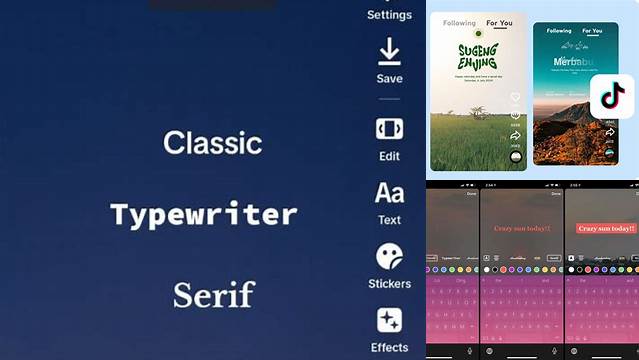
Best Fonts For Editing TikTok Videos: Make Your Content Pop
Hey there, TikTok creators! Want to make your videos stand out? Choosing the right font is key. The fonts you use can significantly impact how your message is received and how engaging your content is. In this article, we'll dive into the best fonts for editing TikTok videos, giving you the knowledge to make your content shine. So, let's get started and find the perfect fonts for TikTok to elevate your videos!
Why Fonts Matter on TikTok
Fonts on TikTok videos are more than just words; they're a visual element that communicates your style and message. Think about it: a playful, bubbly font gives off a totally different vibe than a sleek, modern one. The right font can grab your viewer’s attention, making them stop scrolling and watch your video. Fonts enhance the overall aesthetic, making your content more professional and appealing. Consider fonts as part of your branding – consistent use of certain fonts can help viewers recognize your content instantly. A well-chosen font ensures readability across different devices, which is crucial for retaining your audience. For example, imagine using a super fancy, script-like font that’s hard to read on a small phone screen. People are likely to skip over your video because they can’t easily understand the text. A clear, legible font, on the other hand, keeps them engaged and focused on your message. Moreover, different fonts evoke different emotions. A bold, strong font might be perfect for a motivational message, while a softer, more rounded font might suit a lighthearted, comedic skit. By carefully selecting your TikTok fonts, you can reinforce the tone and mood of your video, creating a more impactful viewing experience. So, when you're thinking about how to make your TikTok videos pop, don't underestimate the power of a great font! It’s one of the simple yet effective ways to level up your content and connect with your audience on a deeper level.
Top Font Categories for TikTok
Selecting the best fonts for editing TikTok often comes down to understanding the main font categories and how they fit your content's vibe. There are several font categories to consider, each bringing a unique flavor to your videos. Let's explore some popular options. First up, we have Sans-Serif fonts. These fonts are known for their clean, modern look, making them super easy to read on screens. Think of fonts like Helvetica, Arial, and Open Sans. They're perfect for captions and text overlays where clarity is key. Sans-serif fonts give off a contemporary and straightforward feel, ideal for tutorials, informational content, or anything where you want a no-fuss, polished look. Next, there are Serif fonts, which have those little extra strokes at the ends of the letters. Fonts like Times New Roman and Georgia fall into this category. Serif fonts often bring a classic and elegant touch to your videos. While they might not be the go-to for quick captions, they can work beautifully for title cards or more artistic TikToks where you want to convey sophistication. Then we have Script fonts, which mimic the look of handwriting. These fonts can add a personal and creative touch to your videos. Think of fonts like Brush Script or Pacifico. Script fonts are fantastic for adding flair and personality, but it's essential to use them sparingly. Too much script can become hard to read, especially on smaller screens. Use them for short, impactful messages or to highlight key words. Moving on, Display fonts are the wildcards of the font world. They come in all sorts of styles – bold, quirky, futuristic, and more. Display fonts are designed to grab attention, making them perfect for titles and intros. However, like script fonts, they're best used in moderation. A great Display font can make your video pop, but overdoing it can overwhelm your viewers. Finally, there are Monospace fonts, where each letter takes up the same amount of horizontal space. Courier New is a classic example. Monospace fonts give a retro, typewriter-like feel, which can be cool for certain aesthetic TikToks or when you want to create a unique, almost coded vibe. Understanding these font categories will help you choose fonts for editing TikTok that not only look great but also enhance your video's overall message and style. Experiment with different categories to see what resonates with your audience and suits your content best!
Best Font Styles for TikTok Videos
Choosing the right font style can significantly enhance your TikTok videos, making them more engaging and visually appealing. When selecting font styles for TikTok, it's crucial to consider your content's tone and the message you want to convey. Let’s dive into some of the best font styles that can elevate your videos. First off, let’s talk about bold fonts. These are fantastic for grabbing attention and making key messages stand out. Think of using bold fonts for titles, headlines, or highlighting important information in your captions. A bold font ensures that your text is easily readable, even on smaller screens, and helps viewers quickly understand the main points of your video. For example, if you're creating a tutorial, using bold fonts for each step can make the instructions clear and concise. Next, consider using italic fonts to add emphasis or a touch of elegance. Italics can be perfect for highlighting quotes, adding a conversational tone, or creating a sense of sophistication. However, it’s essential to use italics sparingly. Overusing italic fonts can make your text look cluttered and harder to read. A subtle use of italics can draw the viewer’s eye to specific words or phrases, making your message more impactful. Script fonts are another excellent style choice for TikTok videos, especially if you want to add a personal or creative touch. These fonts mimic handwriting and can bring a unique flair to your content. Script fonts are ideal for short, eye-catching messages or when you want to convey a friendly and approachable vibe. However, like italics, script fonts should be used in moderation. Too much script can be challenging to read, especially on a fast-scrolling platform like TikTok. Use them for intros, outros, or to highlight a single word or phrase. For a clean and modern look, consider using sans-serif fonts. These fonts are known for their simplicity and readability, making them perfect for captions and text overlays. Sans-serif fonts work well in various contexts, from informational videos to comedic skits. They provide a straightforward and polished appearance, ensuring your message is easily understood. Some popular sans-serif fonts include Helvetica, Arial, and Open Sans. Display fonts are also a great option when you want to make a statement. These fonts come in various styles, from bold and quirky to futuristic and minimalist. Display fonts are perfect for titles, intros, or any element where you want to grab attention. However, because they're designed to stand out, it's best to use them sparingly to avoid overwhelming your viewers. Finally, consider mixing and matching different font styles to create visual interest. For example, you might use a bold sans-serif font for your title and a script font for your signature. Experimenting with different combinations can help you develop a unique style that aligns with your brand and makes your videos stand out on TikTok. Remember, the best fonts for editing TikTok are those that enhance your message and resonate with your audience. By carefully selecting and using font styles, you can elevate your content and create a more engaging viewing experience.
How to Add Fonts to TikTok
Adding cool fonts to TikTok is a fantastic way to personalize your videos and make them stand out. While TikTok has some built-in fonts, you might want to explore other options to truly capture your style. So, how do you add these fonts? Let’s break it down. First, let's talk about using TikTok's built-in fonts. When you're creating a video on TikTok, adding text is super easy. After you record or upload your video, tap the “Text” icon. This opens up the text editor, where you can type your message. TikTok offers a range of fonts right there, including classic, handwriting, typewriter, and more. You can tap through the options to see what looks best for your video. These built-in TikTok fonts are a great starting point and can work well for many videos. You can also adjust the color, size, and alignment of the text within the app, giving you some flexibility in how your message appears. But what if you want to use a font that TikTok doesn’t offer? That's where third-party apps come in handy. There are several apps available on both iOS and Android that let you create text overlays with a wide variety of fonts. Some popular choices include CapCut, InShot, and Phonto. These apps typically have extensive font libraries, including everything from elegant scripts to bold sans-serifs, allowing you to really customize your text. To use these apps, you’ll first create your text overlay with your chosen font and style. Most of these apps allow you to save the text as a PNG file with a transparent background. This is crucial because it means you can overlay the text onto your TikTok video without covering up the background. Once you’ve saved your text overlay, you can import it into TikTok. Start by creating your video as usual. Then, instead of using TikTok’s text tool, tap the “Stickers” icon. From there, you can upload your saved PNG image of the text overlay. Position the text where you want it on the screen, and you’re good to go! This method gives you so much more control over the look and feel of your text. Another option for adding creative fonts for TikTok is to use video editing software on your computer. Programs like Adobe Premiere Pro or Final Cut Pro offer even more advanced font options and customization tools. You can create sophisticated text animations and effects that aren’t possible within TikTok or mobile apps. The process is similar: create your text, export it with a transparent background, and then import it into your video project. This approach is perfect for more polished, professional-looking TikTok content. So, whether you stick with TikTok’s built-in options or venture into third-party apps and software, there are plenty of ways to add fonts to your TikTok videos and make them uniquely yours. Experiment with different methods to find what works best for your style and content!
Font Pairing Tips for TikTok
Font pairing for TikTok can seem like a small detail, but it can significantly impact how your videos are perceived. Using the right combinations of fonts can create visual harmony, enhance readability, and elevate your overall aesthetic. Here are some tips to help you master font pairing for your TikTok content. First off, let’s talk about the basics. A general rule of thumb is to stick to two or three fonts in a single video. Using too many different fonts can make your content look cluttered and overwhelming. Choose one font for your headlines or titles and another for your body text or captions. This creates a clear visual hierarchy and makes your message easier to digest. One classic approach is to pair a serif font with a sans-serif font. Serif fonts, like Times New Roman or Georgia, have those little extra strokes at the ends of the letters, giving them a traditional and elegant feel. Sans-serif fonts, such as Helvetica or Arial, are cleaner and more modern. Pairing these two types of fonts can create a balanced and visually appealing look. For example, you might use a serif font for your title to grab attention and a sans-serif font for your captions to ensure readability. Another helpful tip is to consider contrast. Contrast is key in font pairing. You want to choose fonts that complement each other but also have enough visual difference to stand out. This can be achieved through font weight (bold vs. regular), font size, or font style (e.g., a script font paired with a simple sans-serif). High contrast helps viewers quickly distinguish between different parts of your text, making your message clearer and more engaging. Thinking about the tone of your video is also crucial. The fonts for editing TikTok should align with the overall mood and style of your content. If you're creating a fun, lighthearted video, you might pair a playful script font with a bold sans-serif. For a more serious or professional video, a classic serif font with a clean sans-serif might be a better choice. The goal is to choose fonts that reinforce your message and enhance the viewing experience. Legibility should always be a top priority. No matter how stylish a font looks, it's not a good choice if it's hard to read, especially on a small screen. Avoid overly decorative or intricate fonts for large blocks of text. Stick to fonts that are clear and easy to read at a glance. This is particularly important for TikTok, where viewers often scroll quickly through videos. You want to make sure your message can be understood in a matter of seconds. Don’t be afraid to experiment! Font pairing is an art, and the best way to learn is by trying different combinations. Use font pairing tools and resources online to get inspiration, but also trust your own eye. Play around with different fonts and see what looks good together. Consider how the fonts interact with your video's visuals and overall aesthetic. With a little practice, you'll develop a sense for what works and what doesn't. Remember, the best fonts for TikTok are those that enhance your content and connect with your audience. By mastering font pairing, you can create visually appealing videos that stand out and leave a lasting impression.
Must-Have Font Apps for TikTok Creators
For TikTok creators, having access to a variety of fonts can significantly enhance your video content. While TikTok offers some basic font options, exploring dedicated font apps can unlock a whole new level of creativity. These apps provide a wider range of styles, customization options, and features that can make your videos stand out. Let’s dive into some must-have font apps for TikTok creators. First up, we have CapCut. This is a free video editing app that’s incredibly popular among TikTok users, and for good reason. CapCut not only offers robust editing tools but also a great selection of fonts. You can easily add text to your videos and choose from a variety of styles, including modern, handwritten, and decorative fonts. CapCut also allows you to customize font size, color, and placement, giving you full control over how your text looks. Plus, the app is user-friendly, making it a great choice for both beginners and experienced creators. Another fantastic app for adding cool fonts to TikTok is InShot. InShot is another all-in-one video editing app that’s perfect for creating engaging content. It boasts a wide range of fonts, including stylish scripts, bold display fonts, and clean sans-serifs. InShot’s text tool is highly customizable, allowing you to adjust font size, color, opacity, and even add shadows and outlines. This level of customization helps you create text that perfectly complements your video's visuals. InShot also has a simple and intuitive interface, making it easy to use even if you're new to video editing. Phonto is a dedicated font app that’s a must-have for any serious TikTok creator. Unlike general video editing apps, Phonto focuses solely on text and typography. This means it offers an extensive library of fonts, with hundreds of options to choose from. Phonto also lets you install custom fonts, giving you virtually unlimited possibilities. The app’s text editing tools are incredibly powerful, allowing you to adjust font size, color, spacing, and more. You can even add text to images, making it perfect for creating thumbnails and other visual assets. If you’re looking for a simple yet powerful way to add text to your videos, Phonto is a top choice. Canva is another excellent option for adding creative fonts for TikTok. While Canva is primarily known as a graphic design tool, it also has robust video editing capabilities. Canva offers a vast library of fonts, including both free and premium options. You can easily add text to your videos and customize it using Canva’s intuitive design tools. Canva also provides a wide range of templates and graphics, making it easy to create professional-looking TikTok content. Whether you need to add text overlays, create intro screens, or design eye-catching thumbnails, Canva has you covered. Finally, consider using Adobe Creative Cloud Express. This app, formerly known as Adobe Spark Post, is a versatile tool for creating social media graphics and videos. It offers a wide range of fonts, design templates, and editing features, making it perfect for TikTok creators. Adobe Creative Cloud Express allows you to add text to your videos, customize font styles, and create animated text effects. The app also integrates seamlessly with other Adobe Creative Cloud apps, making it a great choice for users who are already part of the Adobe ecosystem. Having these must-have font apps for TikTok in your toolkit can help you elevate your videos and stand out from the crowd. Experiment with different apps and features to find the ones that best suit your style and needs. Remember, the right fonts can make all the difference in capturing your audience's attention and conveying your message effectively.
In conclusion, selecting the right fonts for editing TikTok videos is crucial for making your content pop. The fonts you use not only enhance the visual appeal of your videos but also play a significant role in conveying your message effectively. By understanding the different font categories, styles, and how to pair fonts, you can create engaging and professional-looking content that resonates with your audience. Whether you stick to TikTok’s built-in fonts or explore third-party apps like CapCut, InShot, or Phonto, the key is to choose fonts that align with your brand and the tone of your video. Experiment with different options, consider readability, and don’t be afraid to mix and match styles to find what works best for you. Remember, the goal is to make your videos stand out and leave a lasting impression. So, go ahead and start experimenting with these tips and tools, and watch your TikTok content reach new heights! By carefully selecting and implementing creative fonts for TikTok, you’ll be well on your way to creating videos that grab attention, communicate your message clearly, and keep your viewers coming back for more. Happy creating!